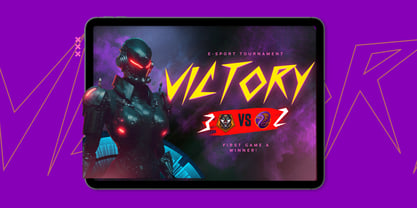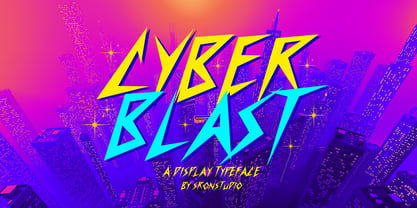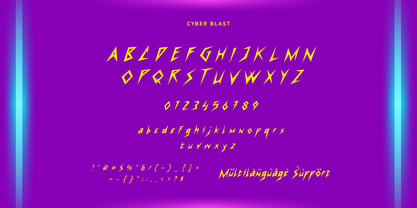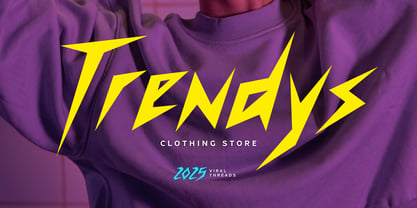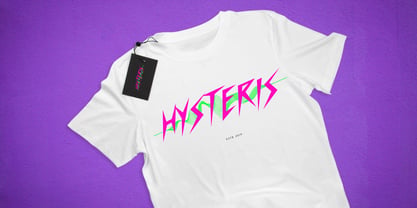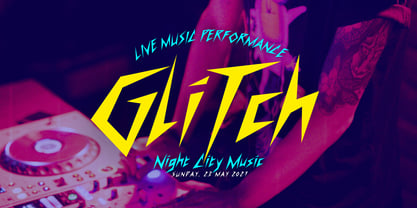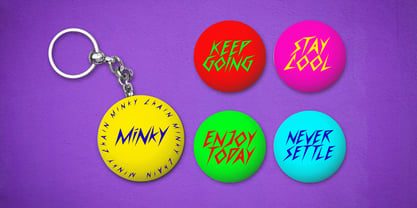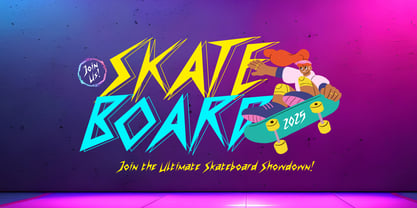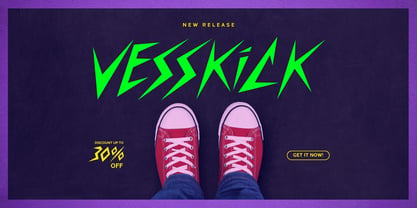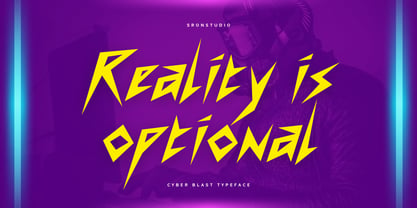
Cyber Blast
by Sronstudio
The Cyber Blast Font Family was designed by Muhamad Yusron Billah and published by Sronstudio. Cyber Blast contains 1 styles. More about this family
Cyber Blast is a futuristic display font inspired by cyberpunk aesthetics, sci-fi tech, and urban street energy. With sharp angles, digital vibes, and bold geometric shapes, this font brings a high-tech edge to your designs. Perfect for game titles, tech branding, posters, and anything that needs a modern, cutting-edge look. Step into the future with Cyber Blast and electrify your visuals with bold digital power!
Designers: Muhamad Yusron Billah
Foundry: Sronstudio